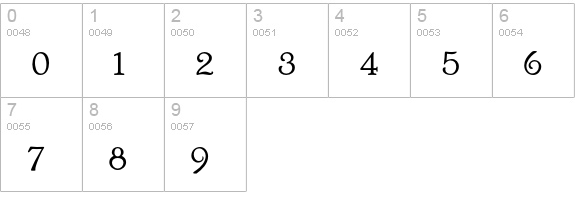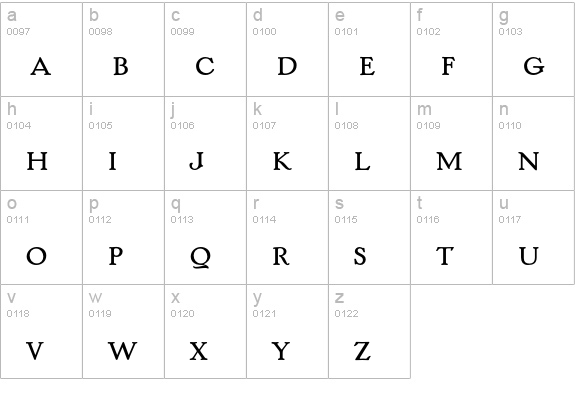
Handle Oldstyle Std Font Details
Handle Oldstyle Std is a timeless and elegant font that exudes sophistication and grace. With its classic and refined design, this font is perfect for adding a touch of elegance to any project or design. The beauty of Handle Oldstyle Std lies in its attention to detail and its ability to seamlessly blend tradition with modernity. Its delicate serifs and clean lines create a harmonious balance that is both pleasing to the eye and easy to read. This font is versatile and can be used across a variety of applications, from branding and logo design to editorial layouts and invitations. Its versatility allows it to adapt to different styles and themes, making it a go-to choice for designers and typographers alike. What sets Handle Oldstyle Std apart is not only its aesthetics but also its accessibility. It is available for free download at FontsMarket.com, making it easily accessible to anyone who wishes to add a touch of sophistication to their projects. Whether you are a professional designer or an enthusiast, this font is at your fingertips, ready to elevate your designs to new heights. So, if you are looking for a font that effortlessly combines tradition and modernity, Handle Oldstyle Std is the perfect choice. Download it for free at FontsMarket.com and let its timeless elegance enhance your creative endeavors.